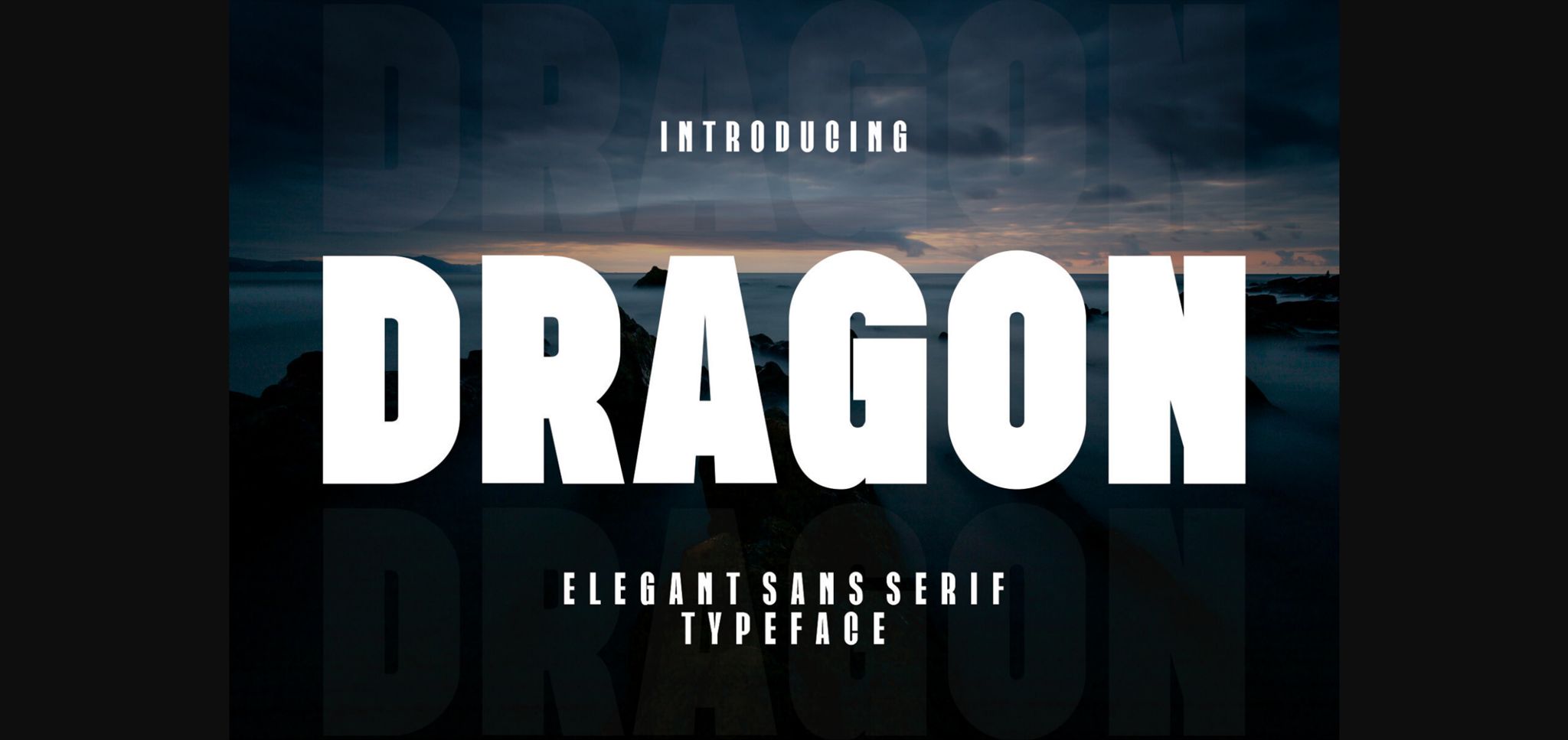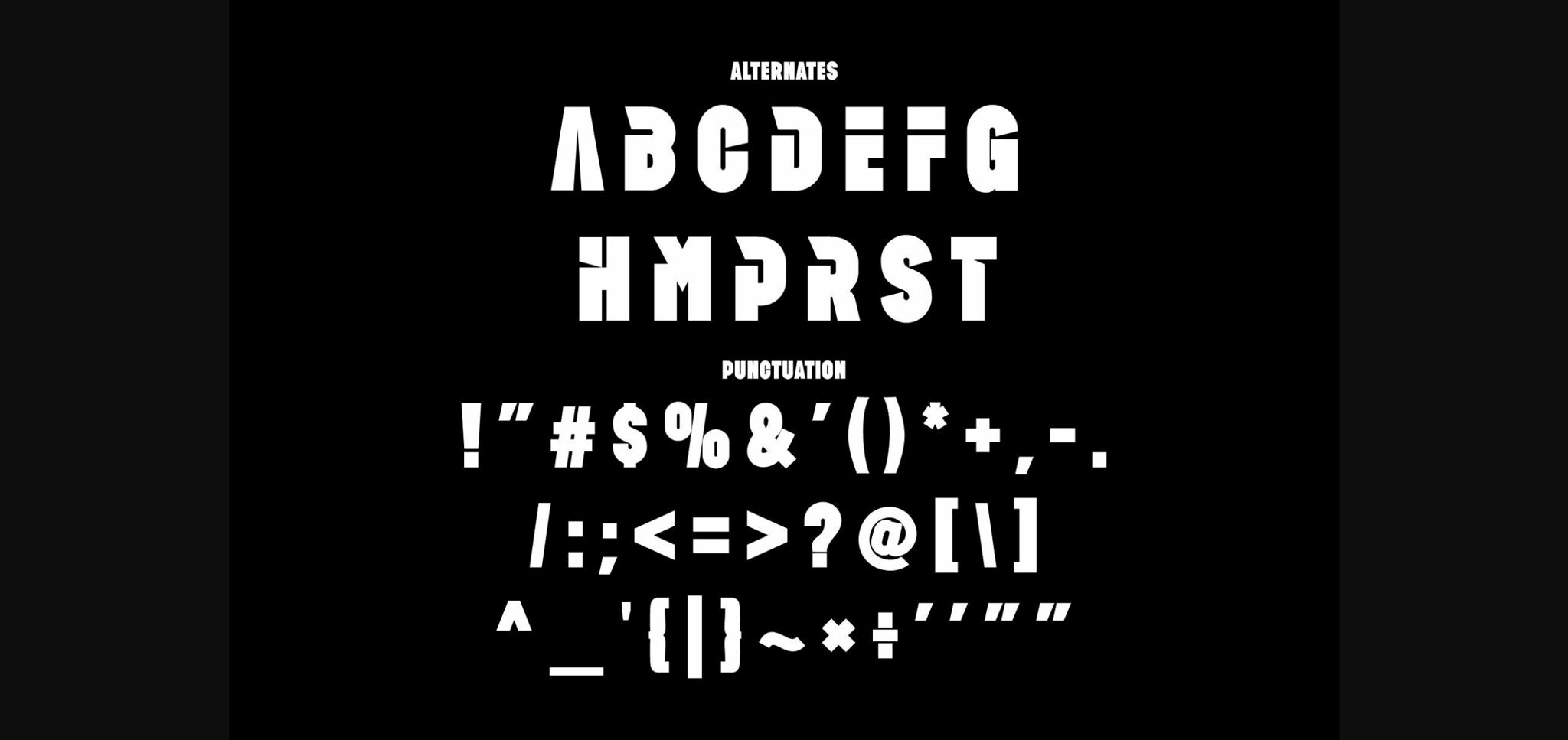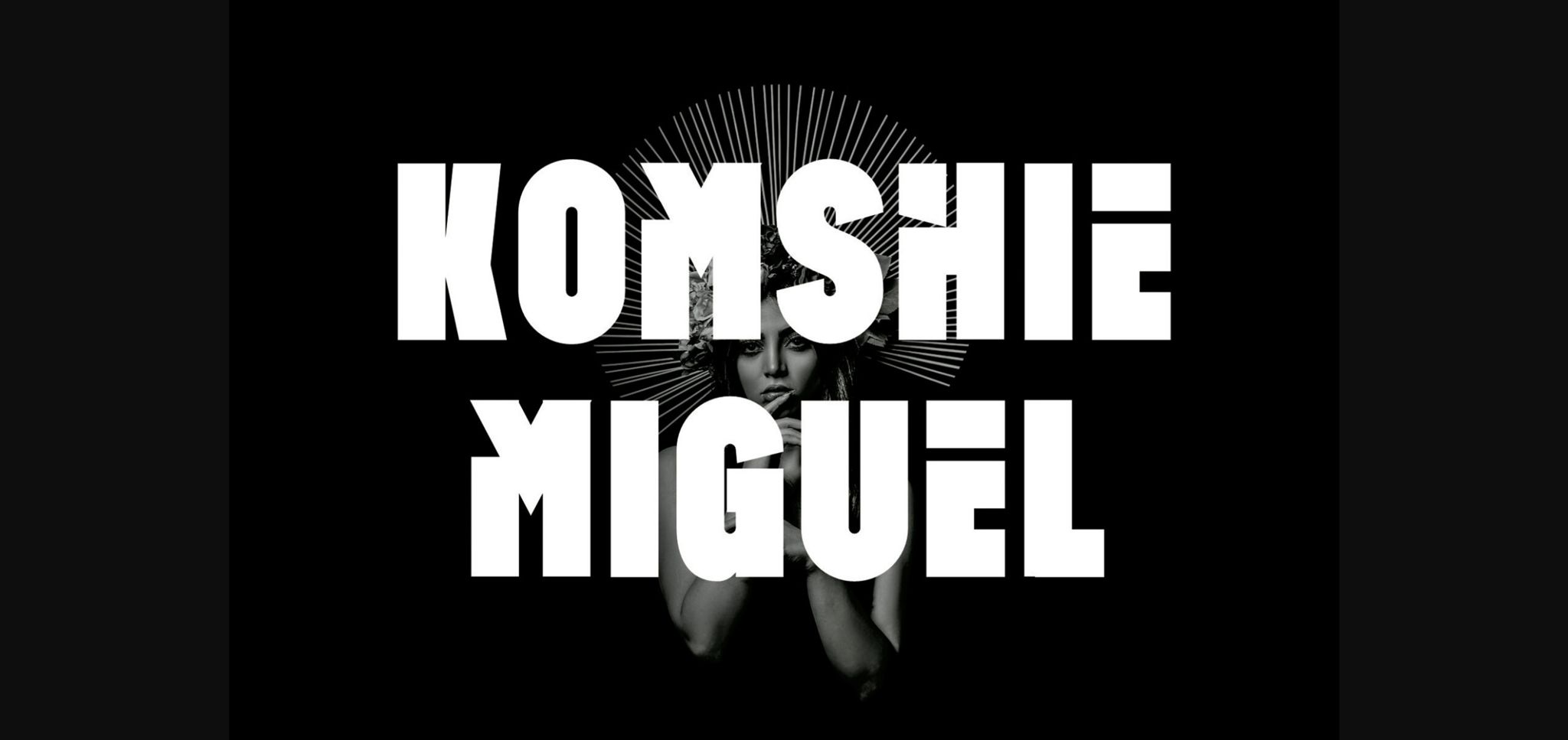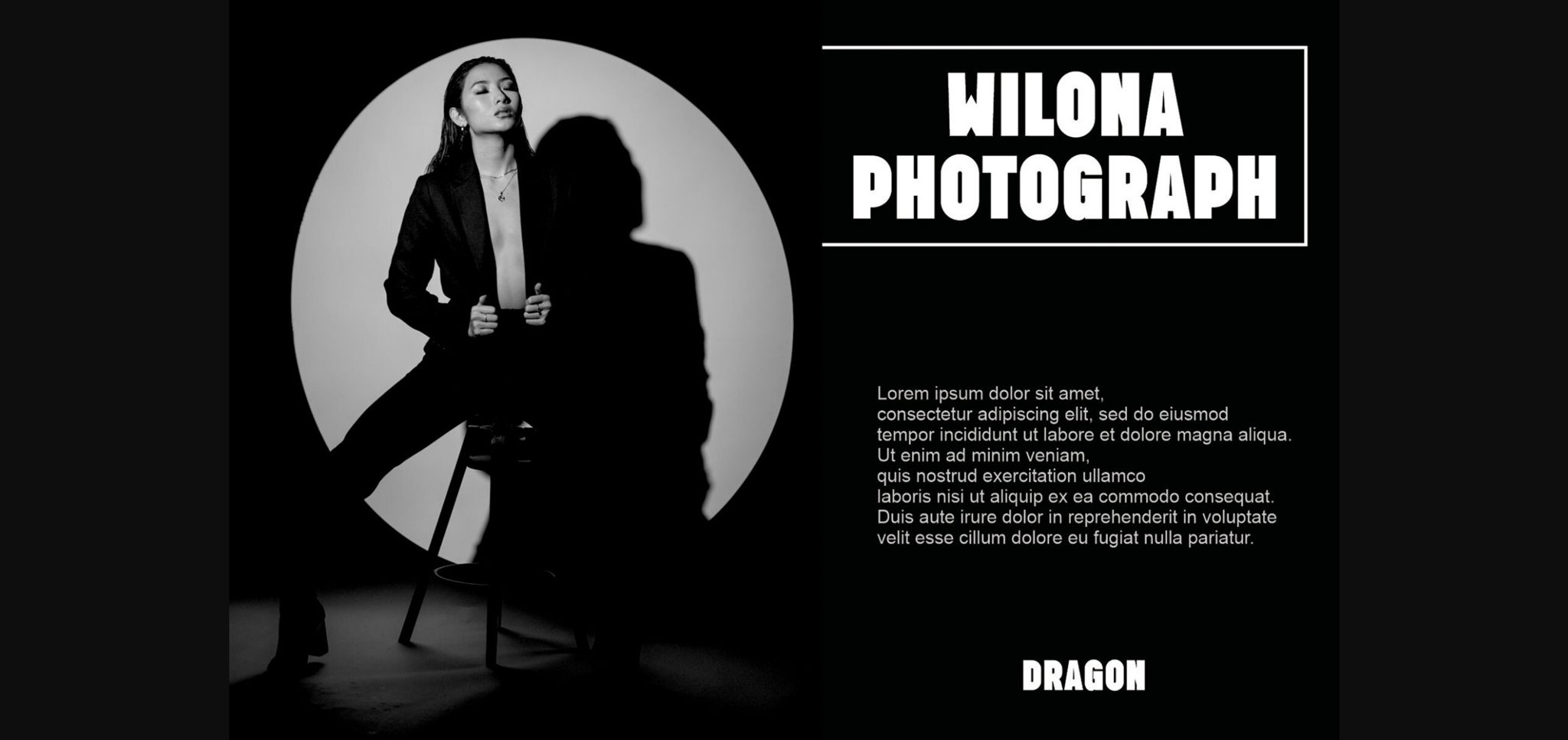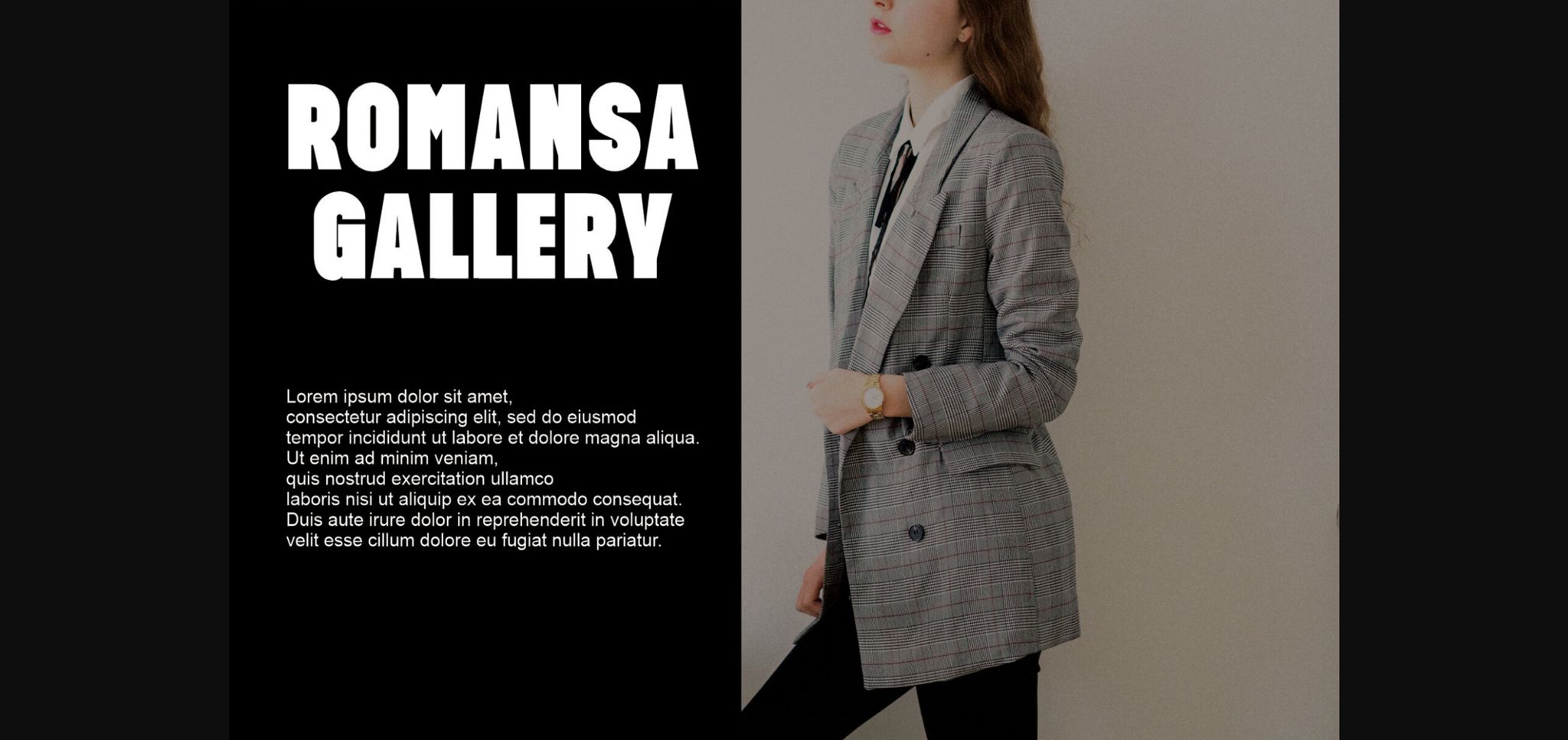
Dragon Font
About Dragon Font
**DRAGON** Modern Sans Serif Typeface inspired by the famous minimalist logo perfect for the purposes of designing templates, brochures, videos, advertising branding, logos, invitations, layout designs, elegant crafting, beauty design, and others.